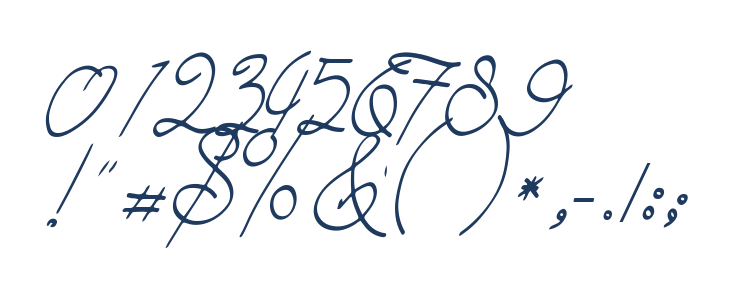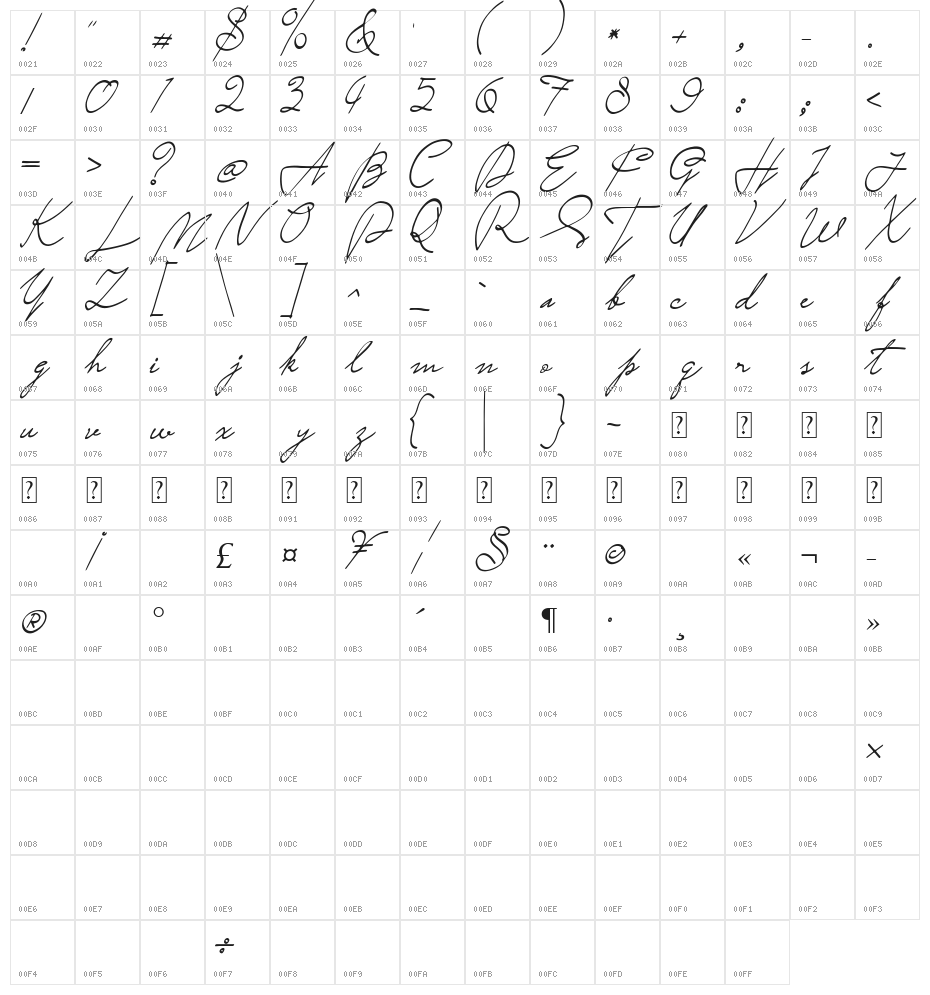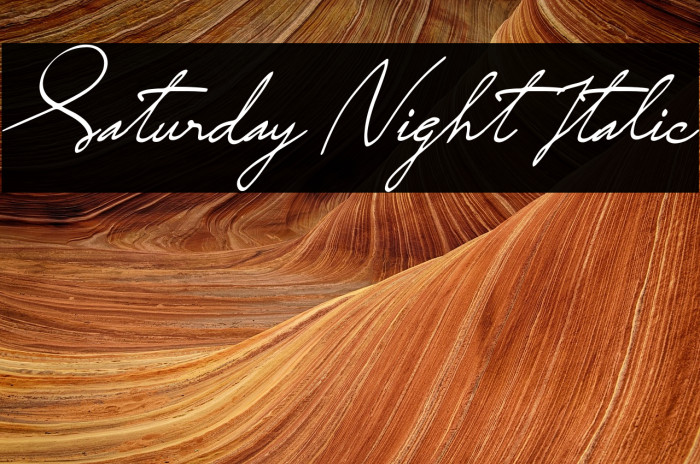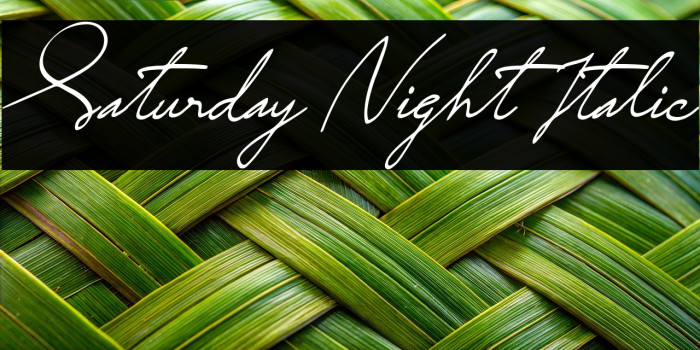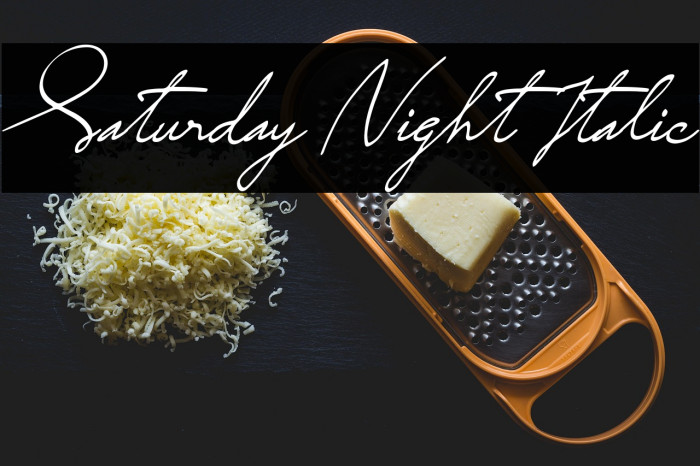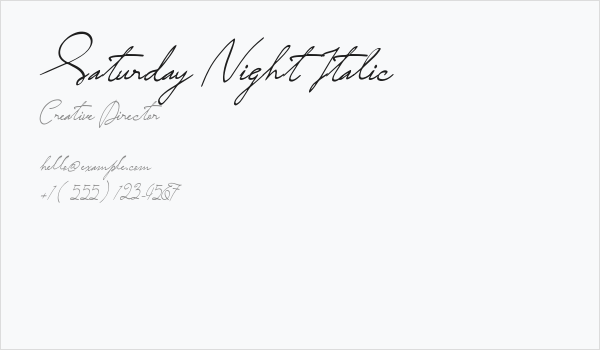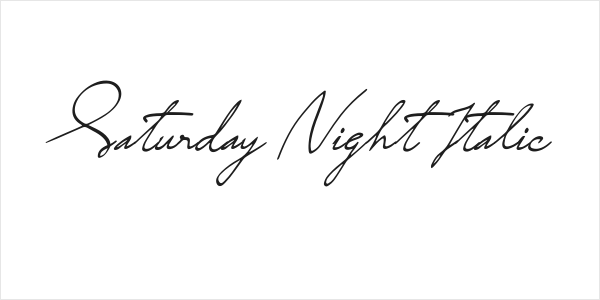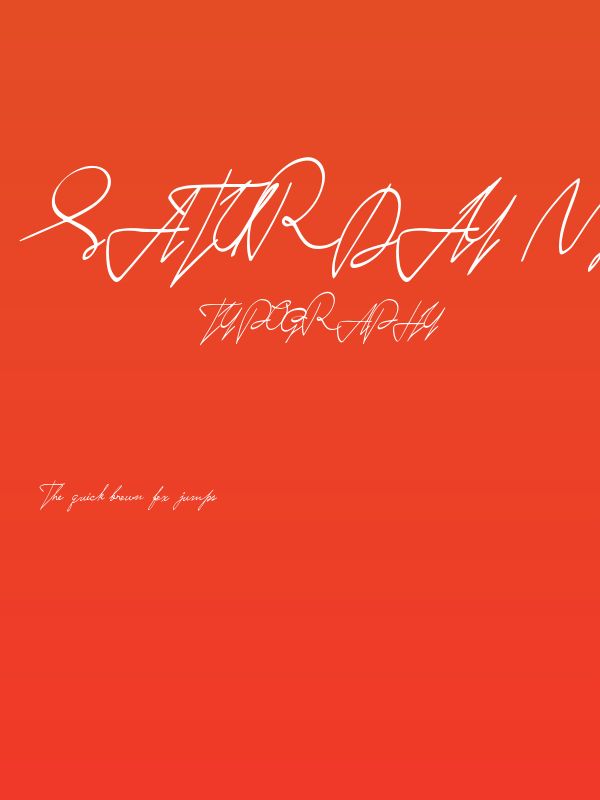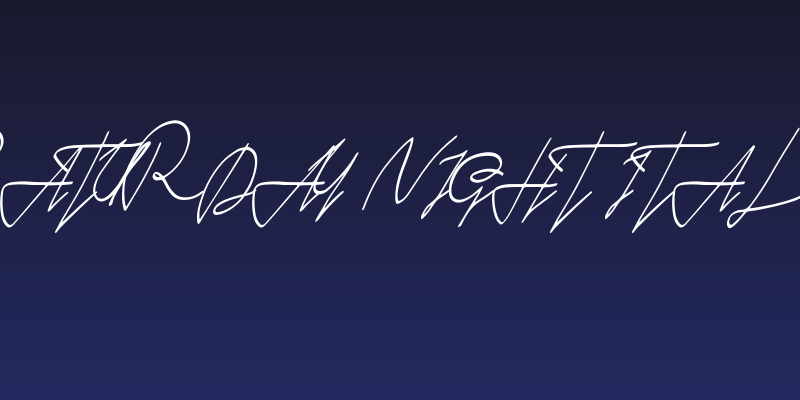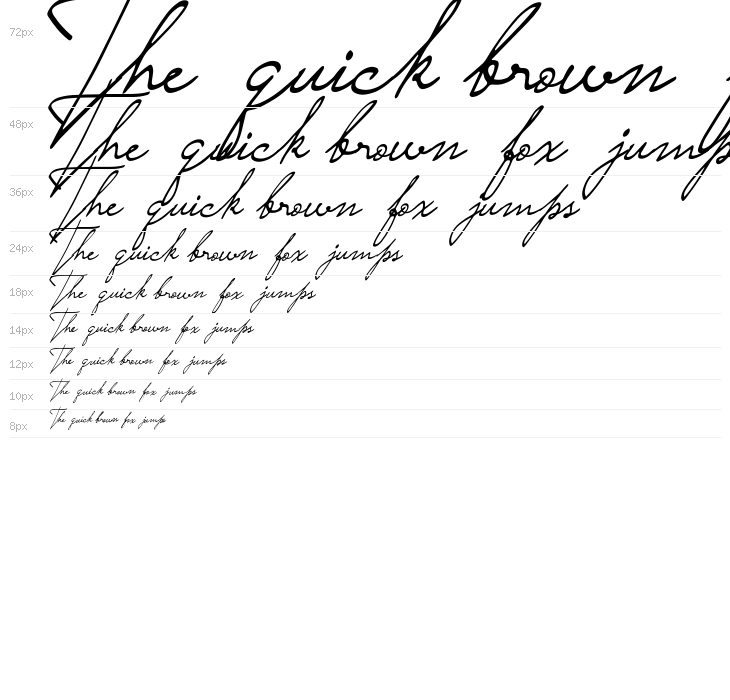
Saturday Night Italic Font
Saturday Night Italic Description
This font exudes a lively and dynamic energy with its flowing, cursive style. The letters are elegantly connected, creating a sense of movement and fluidity. The uppercase characters are tall and slender, while the lowercase letters maintain a consistent rhythm with their smooth, looping forms. The numerals are distinctive, with a playful yet sophisticated flair. Special characters are integrated seamlessly, enhancing the font's overall aesthetic. This script font is perfect for adding a personal touch to any design, evoking a sense of creativity and spontaneity.